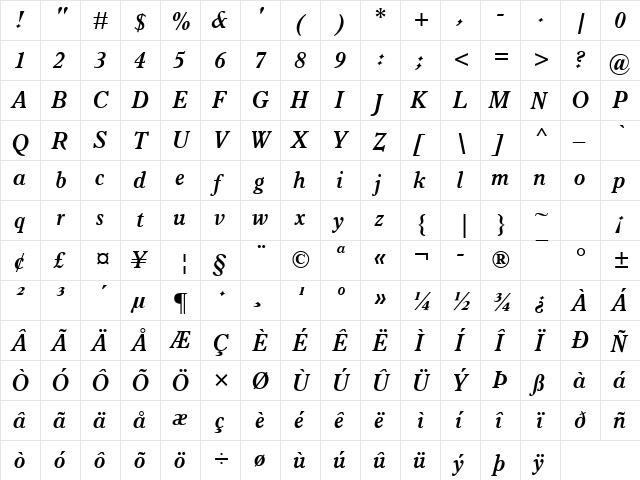
Italian Old Style MT Bold Italic Font Preview
Design Context for Italian Old Style MT Typeface
Italian Old Style MT takes a measured approach to typography — its balanced proportions and neutral character make it a reliable workhorse for both digital and print work. The dynamic lean of this cut emphasises speed and emphasis in any layout. Its bold stroke weight gives it real presence on the page.
Pro Tip: Try Italian Old Style MT for annotation and caption copy alongside an upright companion — the contrast in angle creates a dynamic but ordered typographic system.